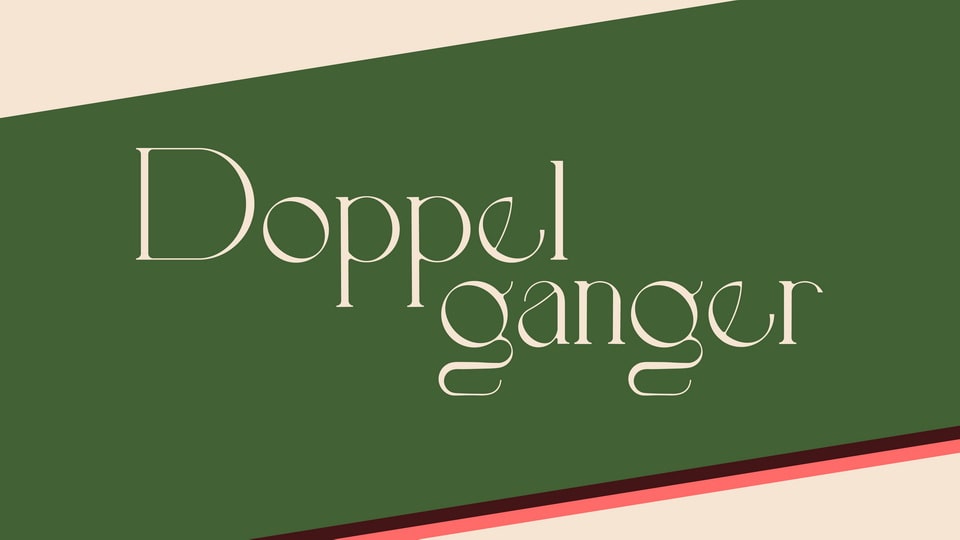
Download Doppelganger font, a retro inspired, oddly shaped serif typeface. It might look like many other fonts, but there’s something different about it…something strange.
Designer: Casper Schutte